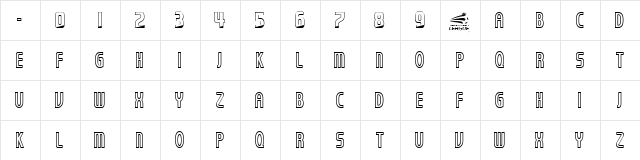
Champions League Regular
Design Context for Champions League Typeface
Champions League offers clean, dependable letterforms without strong stylistic allegiance, making it a practical choice for designers who need flexibility.